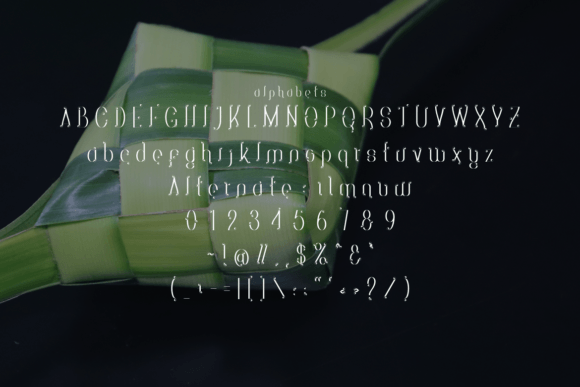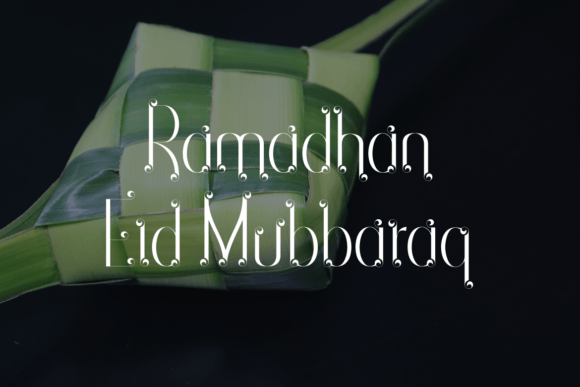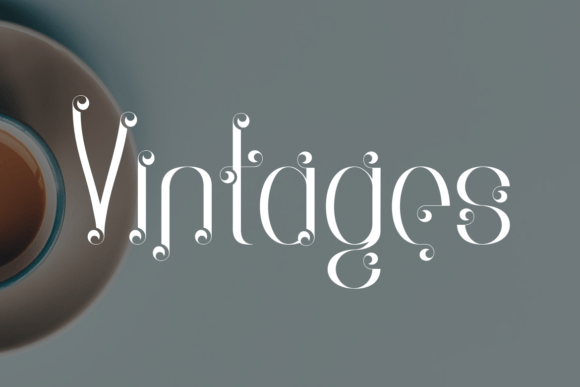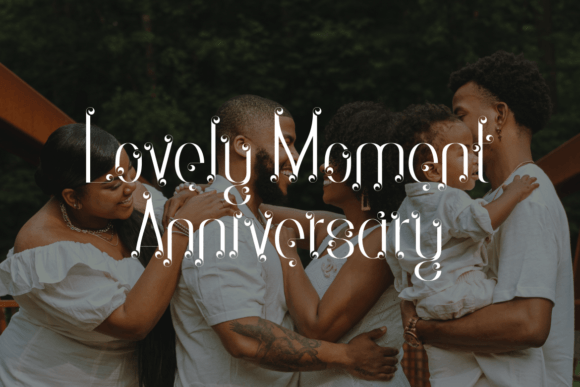
Introduction to Nathalyn Kareem Font
Is a font with a look that has decorations for luxurious things such as holidays, family days and celebration days about moments of happiness.
This font is suitable in combination also as a greeting font, such as greeting cards, and also for memorable moments, albums can be the main alternative in beautiful memories combined with this font .